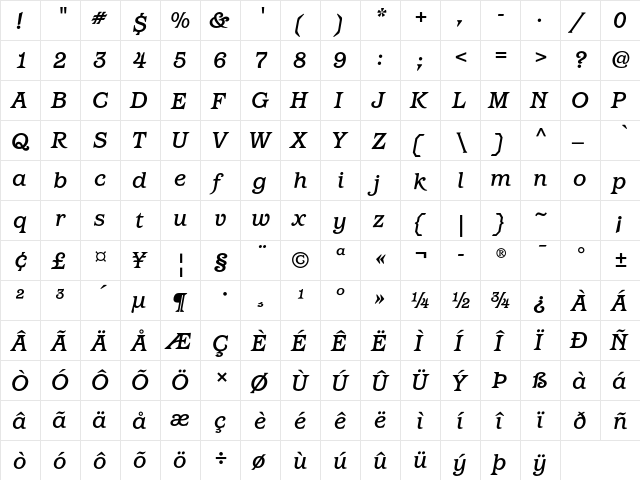
Barcelona ITC Std Medium Ital
| Designer | Edward Benguiat |
Design Context for Barcelona ITC Std Typeface
Barcelona ITC Std takes a measured approach to typography — its balanced proportions and neutral character make it a reliable workhorse for both digital and print work.